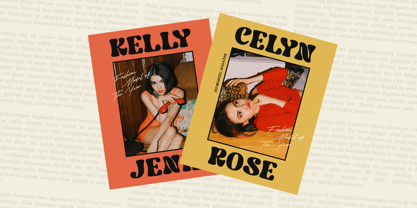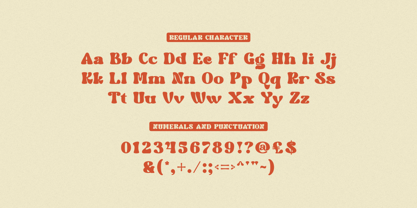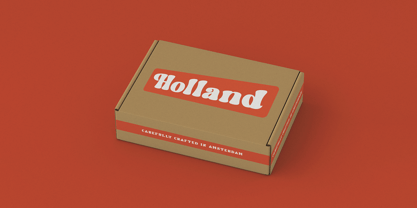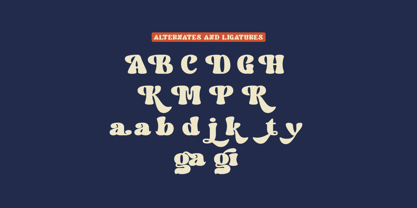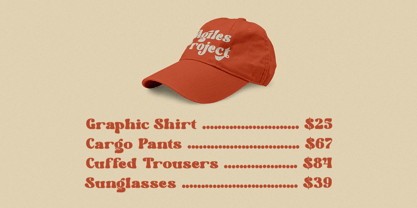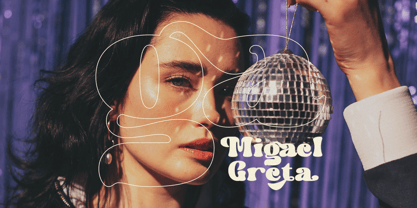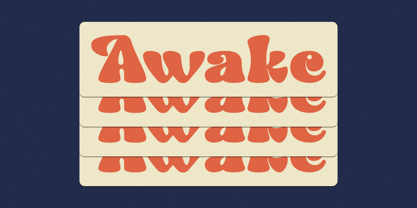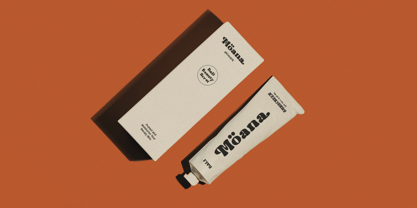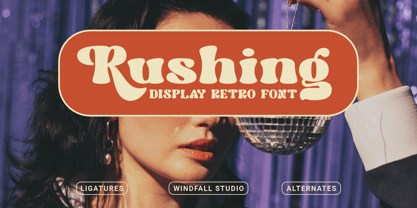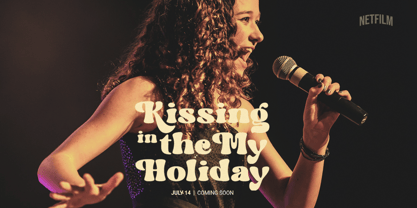
Rushing
by Windfall Studio
The Rushing Font Family was designed by Anggia Putri Premitasari and published by Windfall Studio. Rushing contains 1 styles. More about this family
Rushing - Bold Headline Typeface
Rushing is a vintage font that combines groovy and psychedelic styles. It is designed to take you back to the nostalgic era of the 80s. Its unique shape provides opportunities for you to use it in various styles, especially in pop art and retro themes .
Designers: Anggia Putri Premitasari
Foundry: Windfall Studio